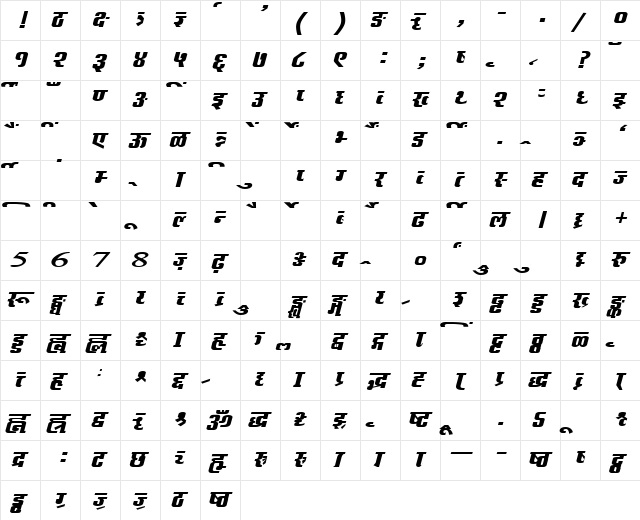
AkrutiDevRaksha BoldItalic Font Preview
Design Context for AkrutiDevRaksha Typeface
AkrutiDevRaksha offers clean, dependable letterforms without strong stylistic allegiance, making it a practical choice for designers who need flexibility. The slanted form adds forward momentum and visual energy. The heavy weight commands attention and anchors typographic hierarchies.
Pro Tip: Try AkrutiDevRaksha for annotation and caption copy alongside an upright companion — the contrast in angle creates a dynamic but ordered typographic system.